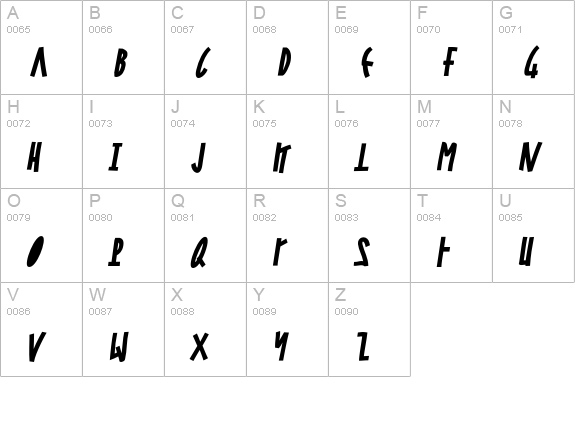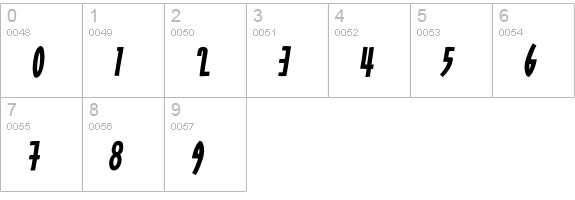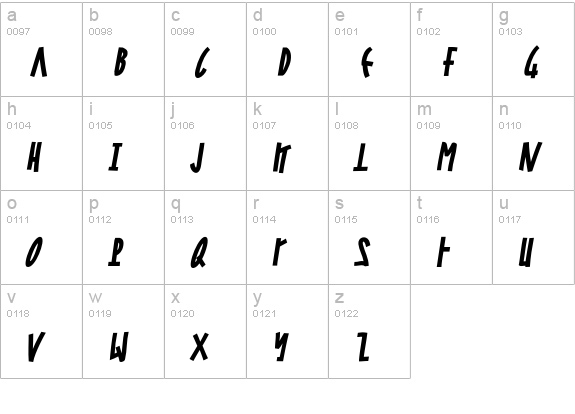
Steel-JonesBoldItalic is a stunning typeface that exudes elegance and sophistication. Designed with precision and care, this font effortlessly combines the boldness of Steel-JonesBold with the added flair of italics, resulting in a unique and striking aesthetic. This font is perfect for projects that require a touch of modernity and a strong visual impact. Whether you're designing a logo, creating eye-catching headlines, or crafting stylish invitations, Steel-JonesBoldItalic will elevate your work to the next level. One of the best things about Steel-JonesBoldItalic is that it is freely available to download at FontsMarket.com. This means that you can easily access this exceptional font without any cost, making it an excellent choice for designers and creatives on a budget. With its sleek and polished appearance, Steel-JonesBoldItalic is versatile enough to be used in a variety of design projects. Its clean lines and balanced letterforms make it highly legible, ensuring that your message is delivered with clarity and impact. So, why wait? Take advantage of the opportunity to enhance your designs with Steel-JonesBoldItalic. Download this font for free at FontsMarket.com and experience the power of this exceptional typeface. Elevate your creations and captivate your audience with the timeless beauty of Steel-JonesBoldItalic.